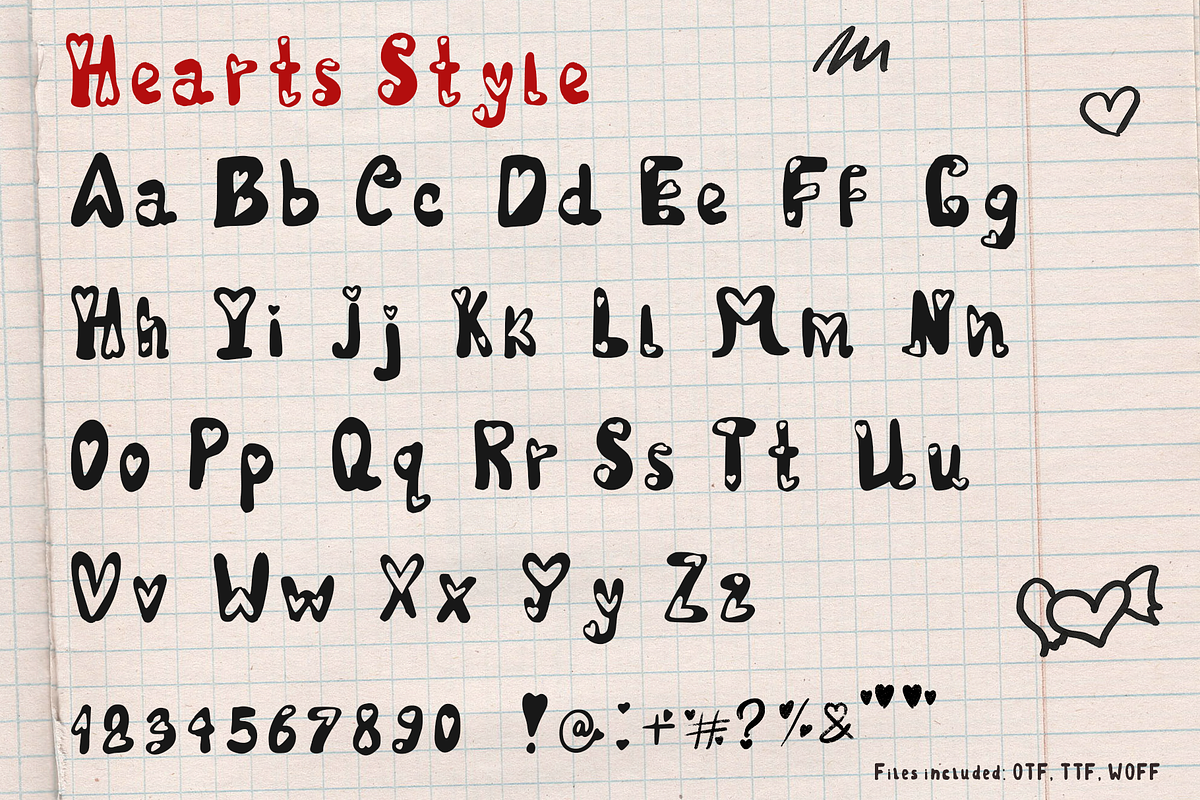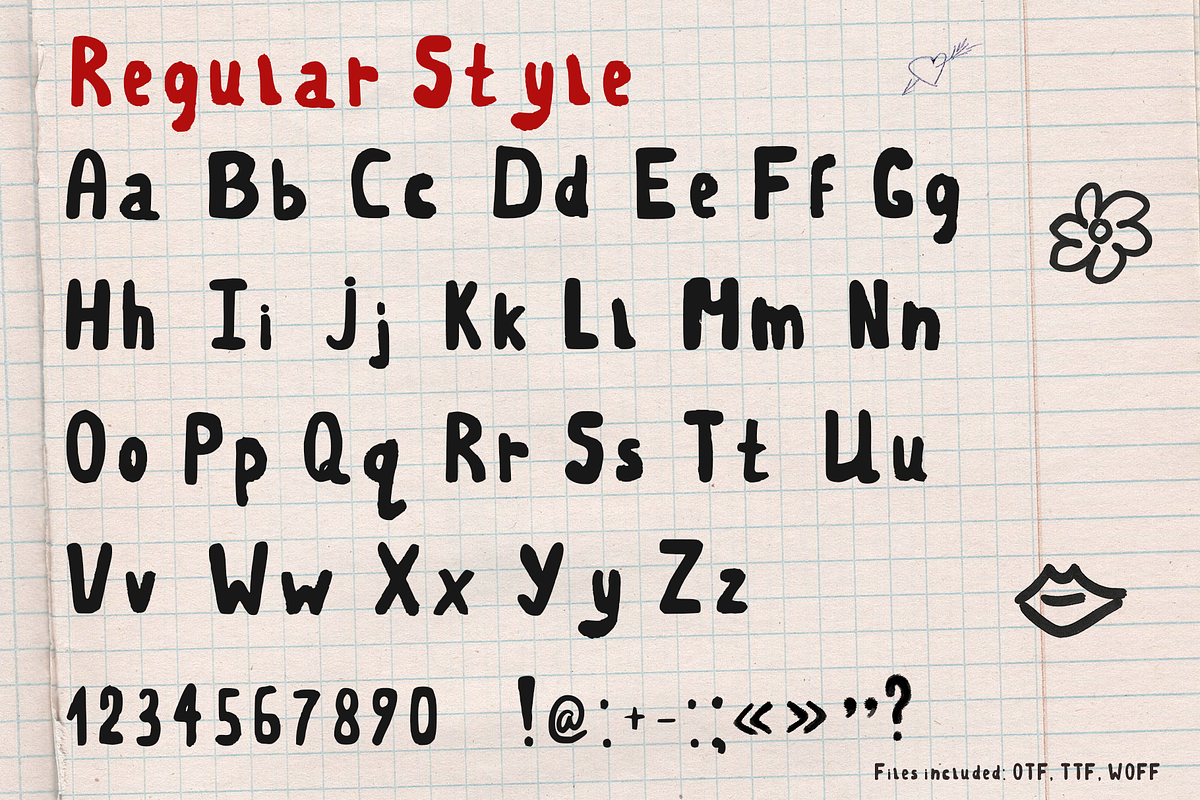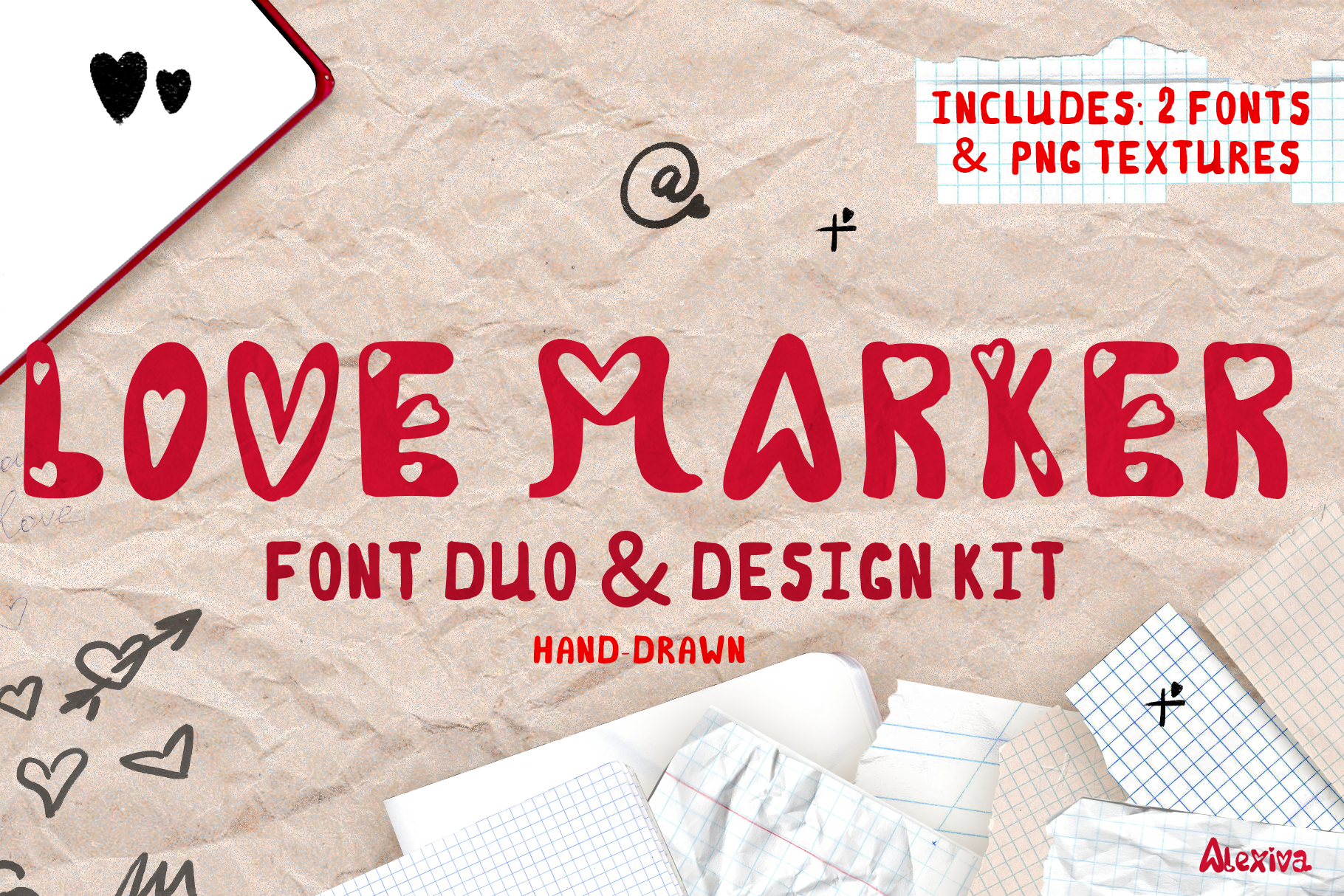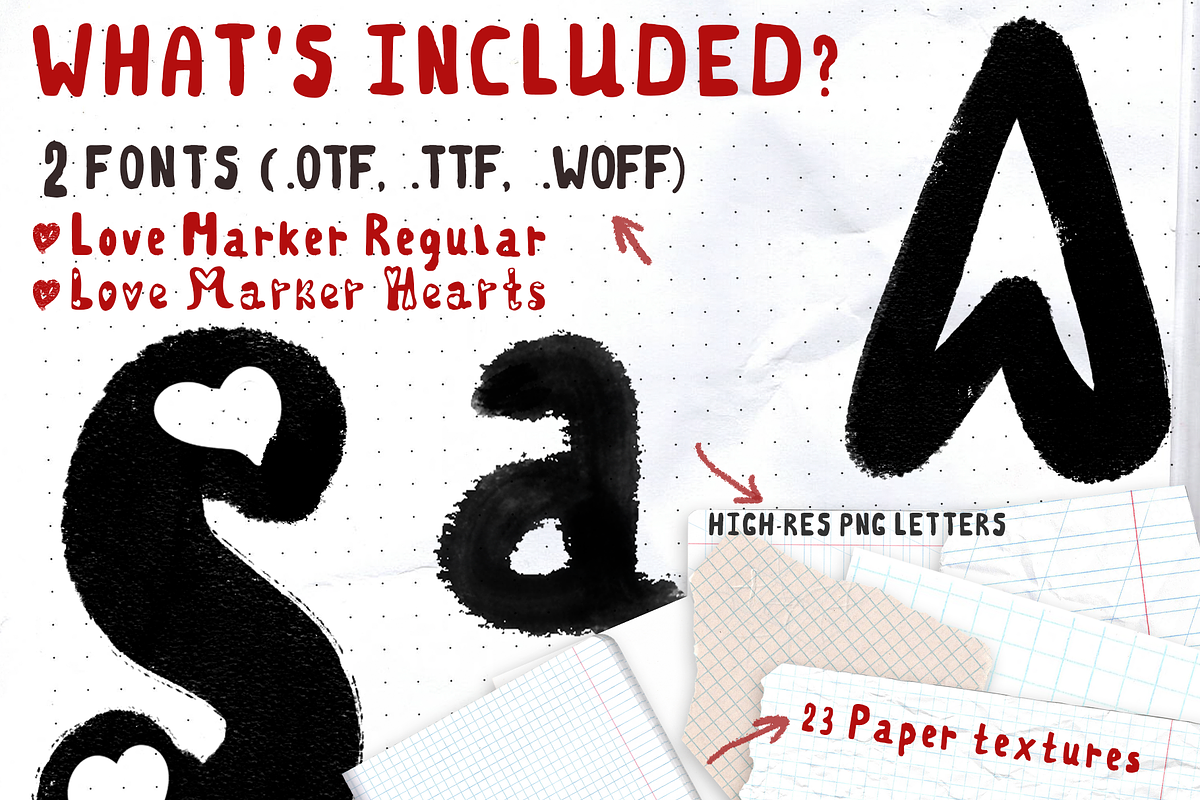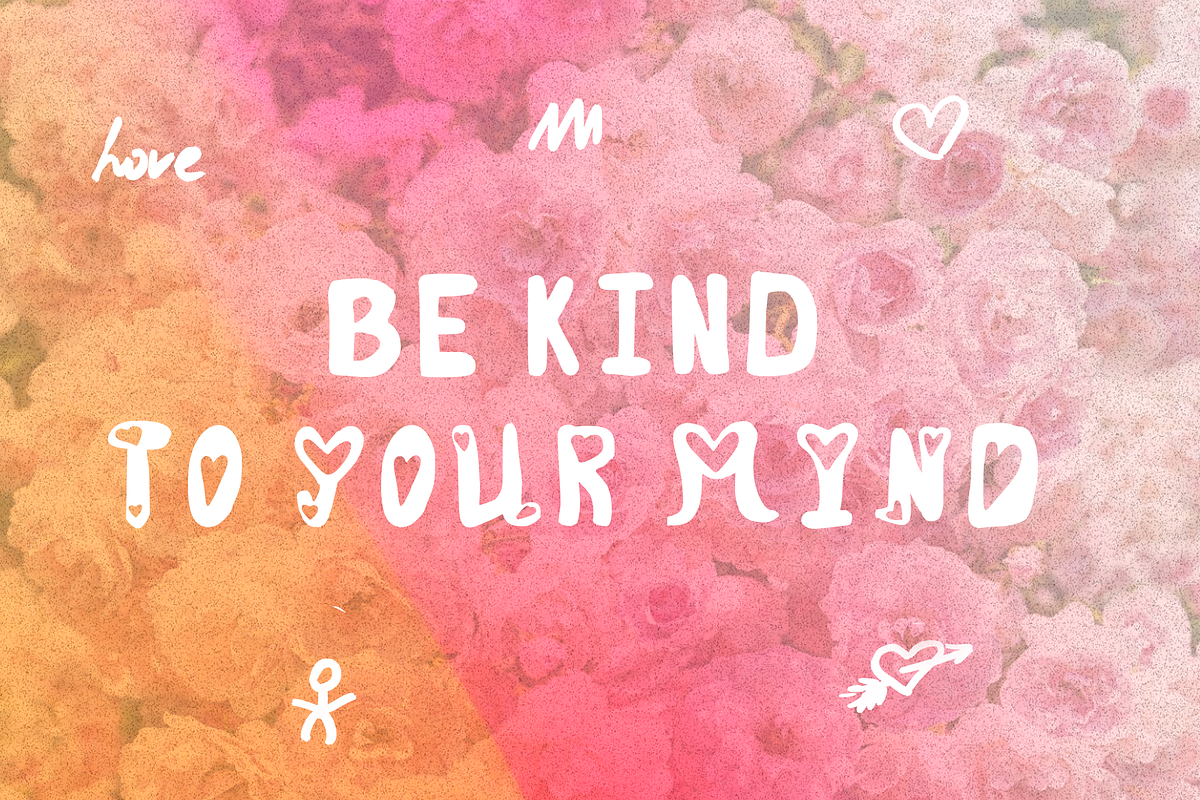
Love Marker | Font Duo & Design Kit
Add a loud, authentic, and playful voice to your designs with Love Marker! 🖤✍️
This isn't just a font — it's a complete Design Kit. Hand-drawn on an iPad to capture the perfect "imperfect" texture of a thick permanent marker, this set is perfect for creating realistic collages, school posters, social media quotes, and trendy merchandise.
Love Marker Regular (.OTF, .TTF & .WOFF) A bold, chunky marker font with a clean baseline. Perfect for legible headlines and text.
Love Marker Hearts (.OTF, .TTF & .WOFF) A decorative display version where every letter features a cute, hand-drawn heart cut-out. Great for logos and initials!
BONUS: High-Res PNG Letters A complete set of A-Z letters and 0-9 numbers in huge resolution (3000px). These preserve the authentic dry-marker texture and semi-transparency that vector fonts can't capture. Just drag and drop!
BONUS: Paper Texture Pack 23 high-quality paper textures (crumpled, notebook, kraft, ripped edges) to complete your realistic collage look.
- Includes Uppercase, Lowercase, Numbers, and Punctuation.
- Includes fun "Dingbats" (arrows, scribbles, hearts) — access them via special keys!